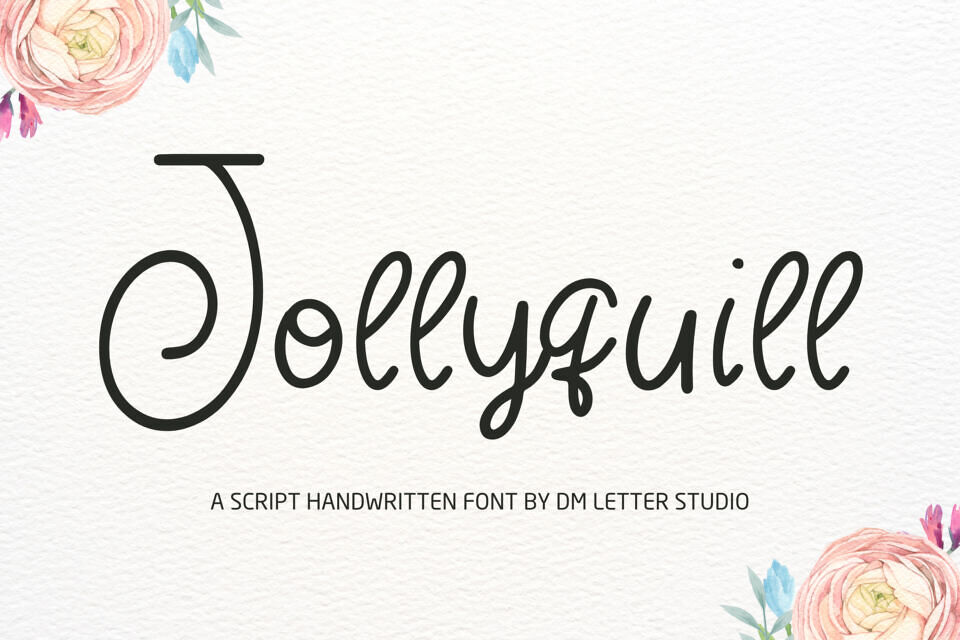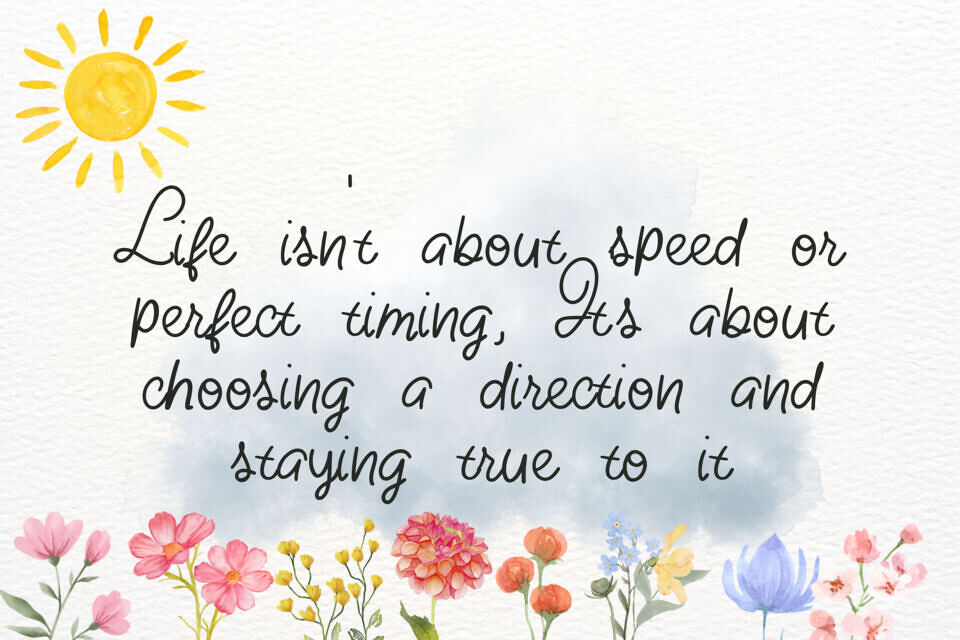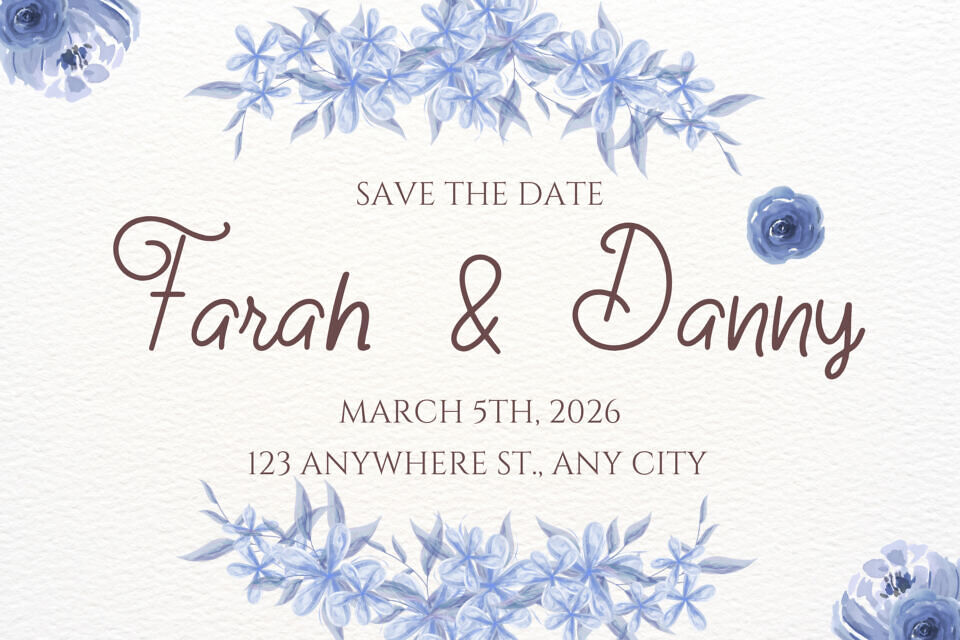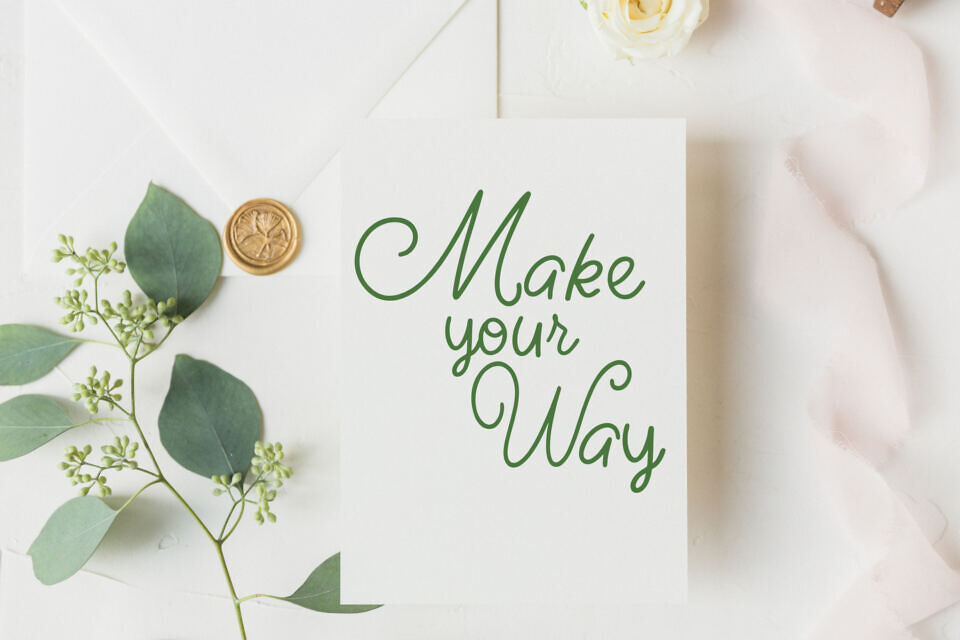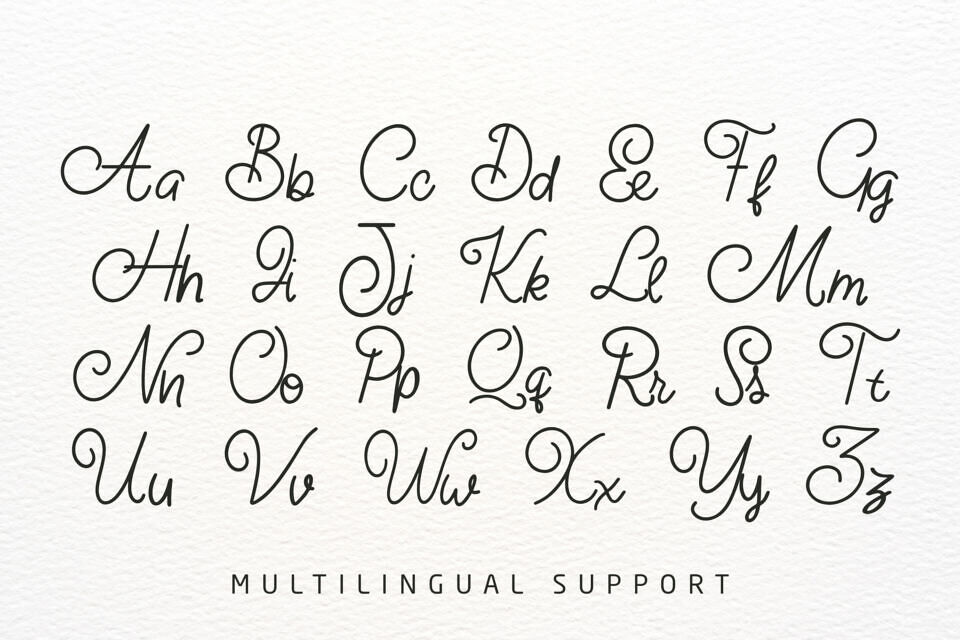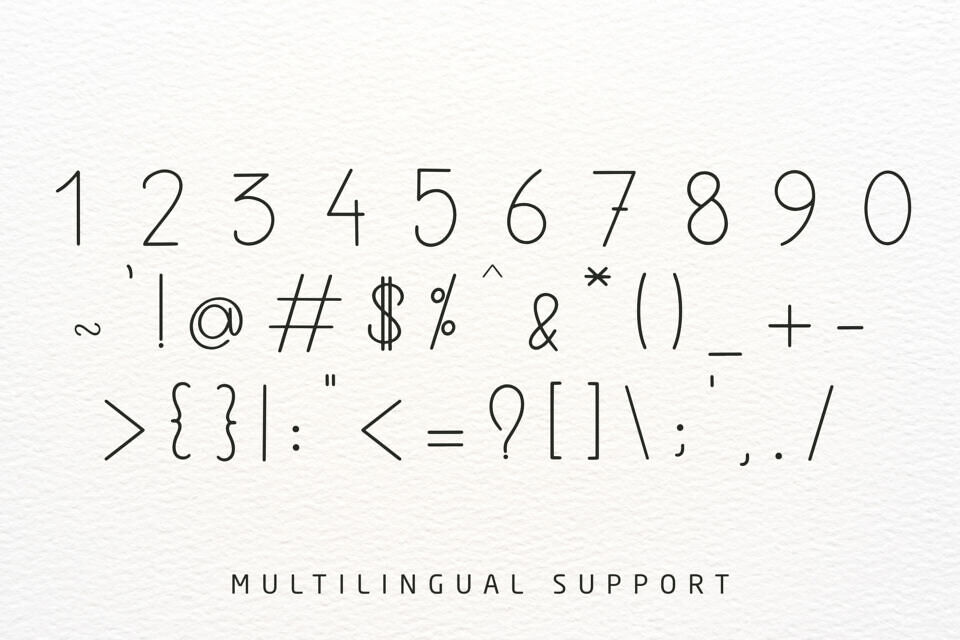
Jollyquil is a cheerful script handwriting font with smooth flow and natural movement. The strokes feel lively and friendly, like real pen lettering written with confidence and charm. Each letter connects beautifully, creating words that look personal and warm without losing clarity.